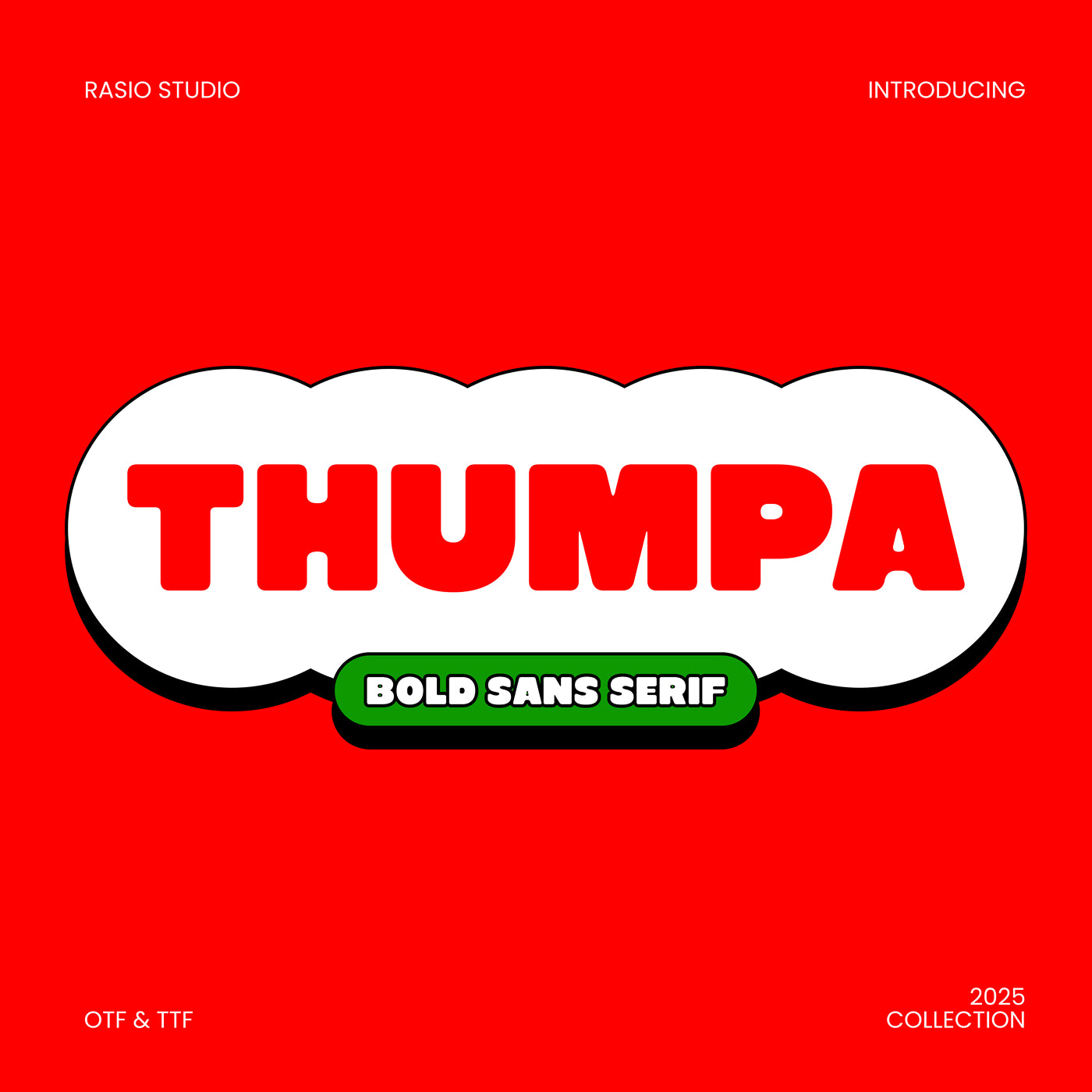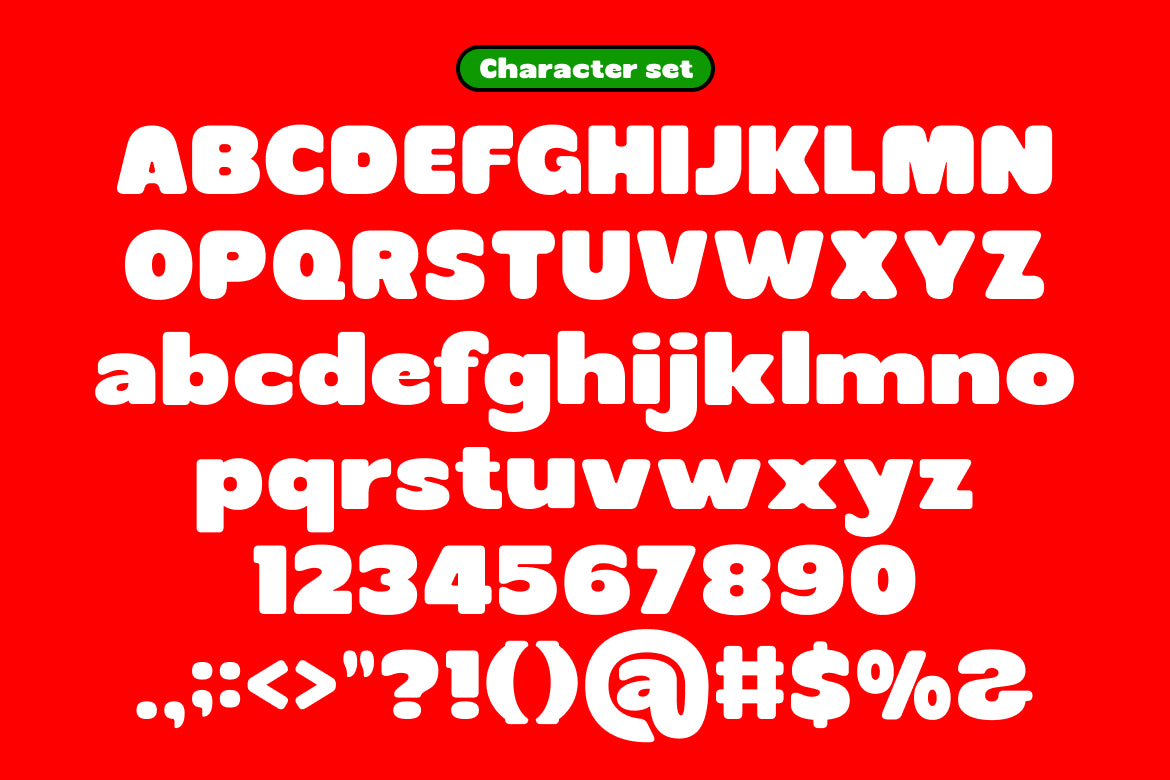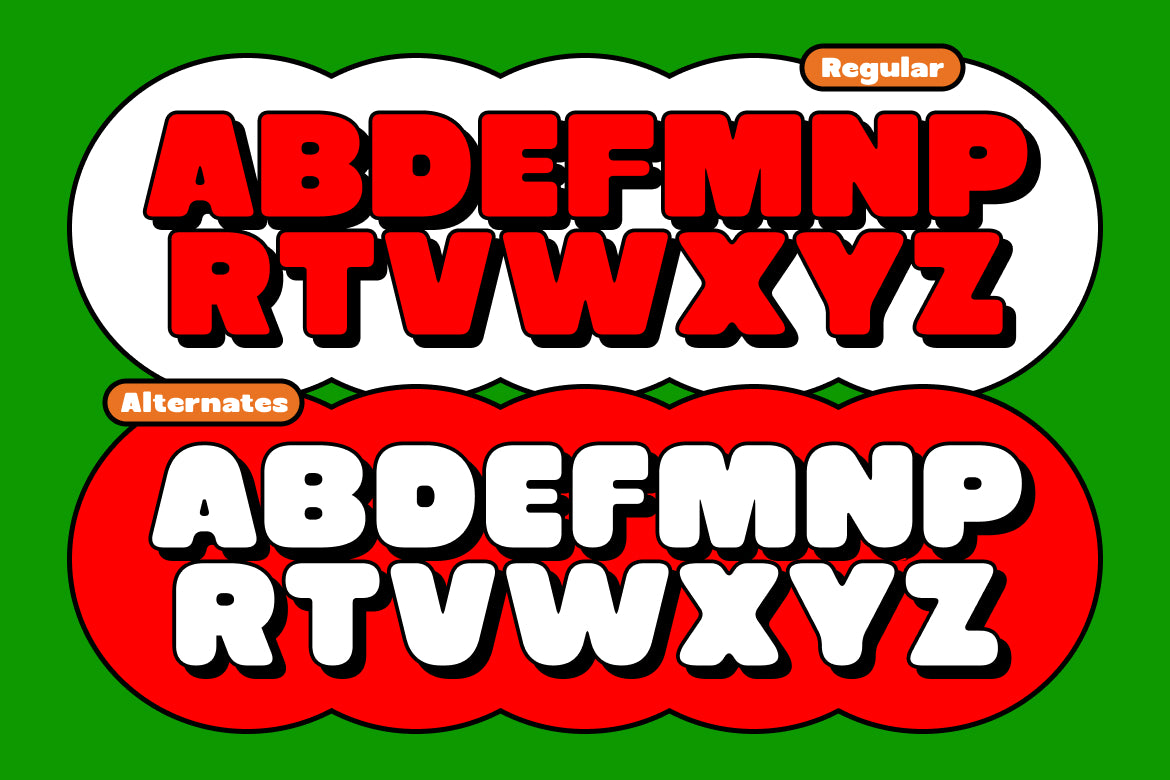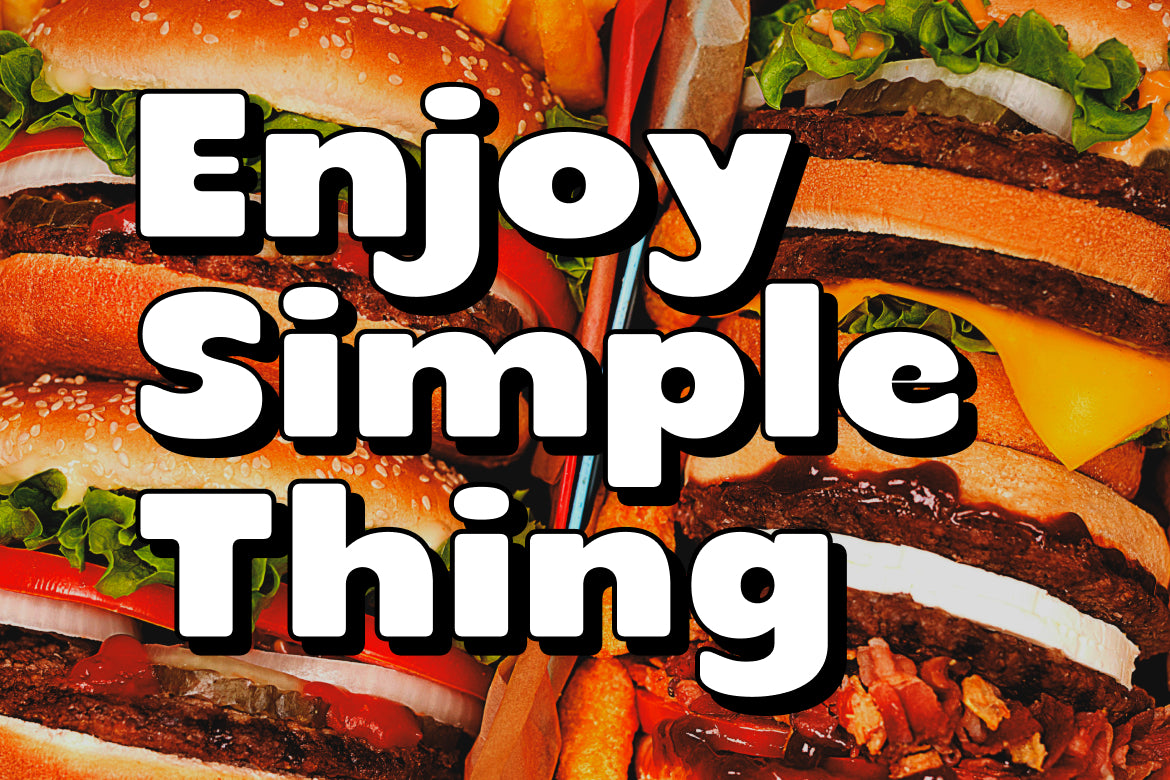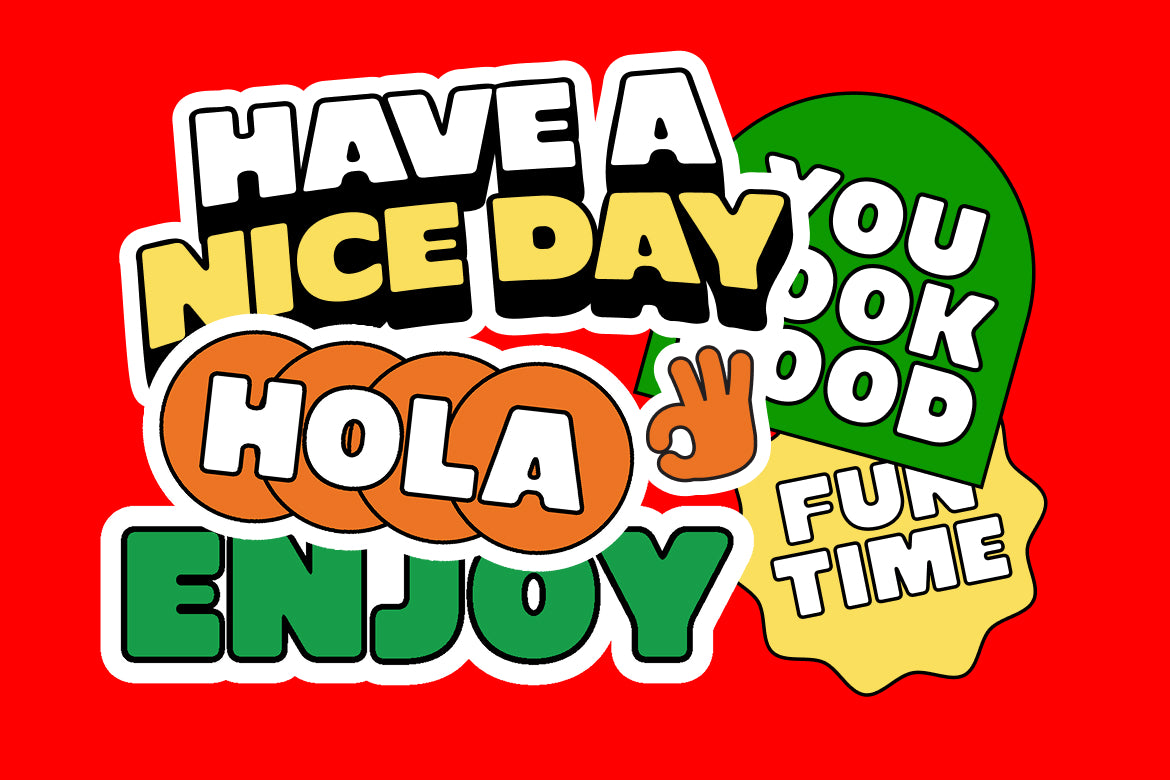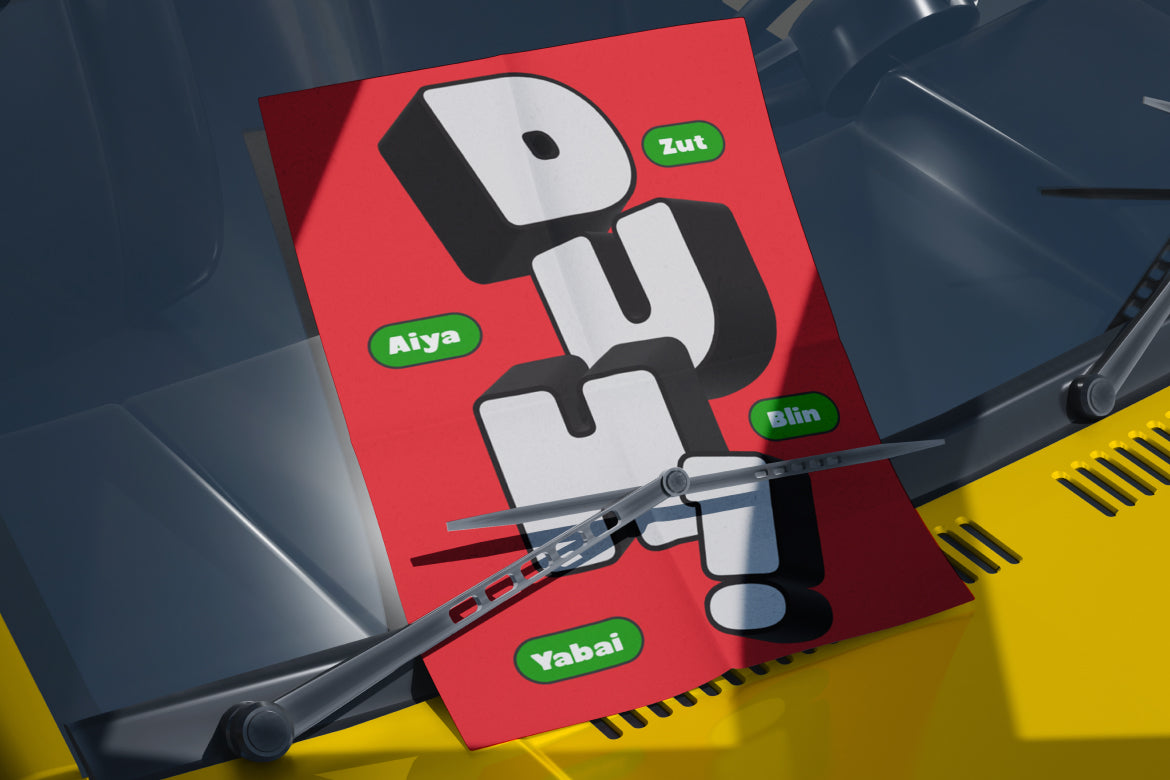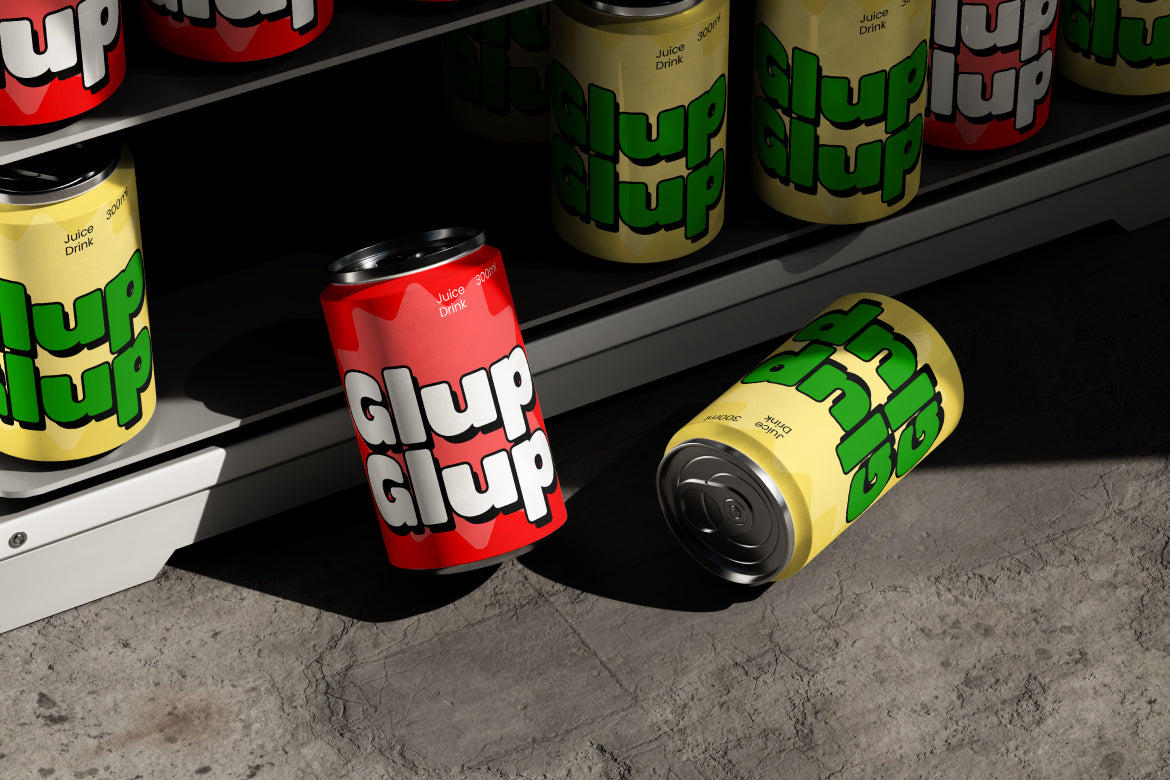
Thumpa Bold Sans Serif Font
Thumpa is a chunky and energetic sans serif font packed with retro fun and modern boldness. Its bubbly rounded shapes and thick strokes make it instantly eye-catching for headlines, stickers, logos, and playful design projects. Designed with a nostalgic yet fresh aesthetic, Thumpa blends the cheerfulness of cartoon typography with a clean sans-serif balance perfect for bright, pop-inspired visuals and expressive branding.
Relevance and Use Cases is perfect for playful branding, cartoon posters, retro packaging, sticker design, children’s books, digital assets, and pop culture merchandise. Thumpa brings a sense of joy and boldness to every project with its loud, soft-edged, and energetic character.
Thumpa is a bold sans serif font featuring rounded shapes and thick strokes, with uppercase and lowercase letters, numerals, and punctuation. It is available in TTF, OTF, and WOFF formats.